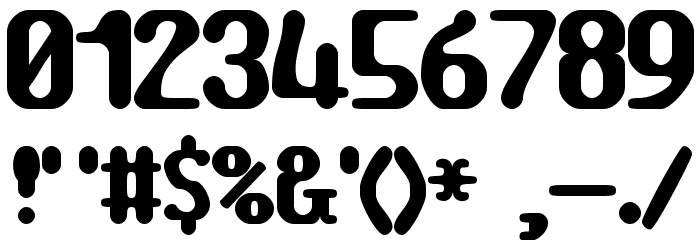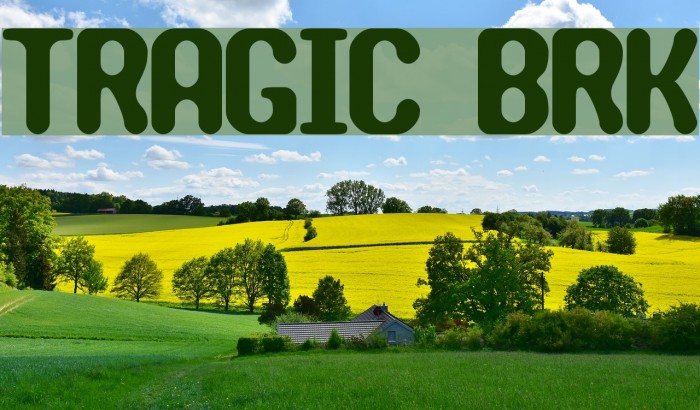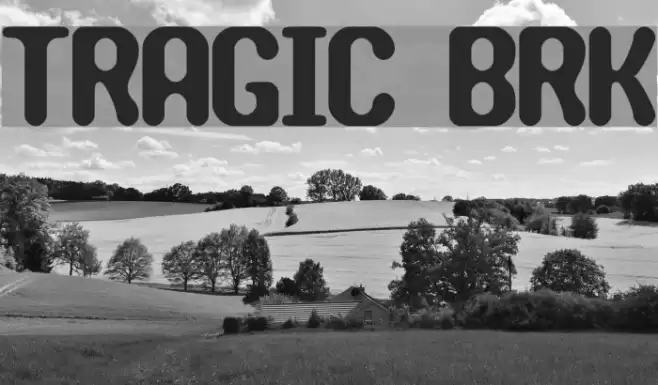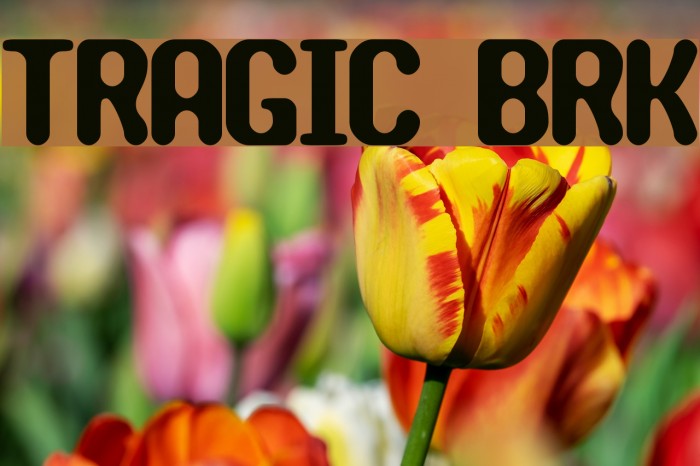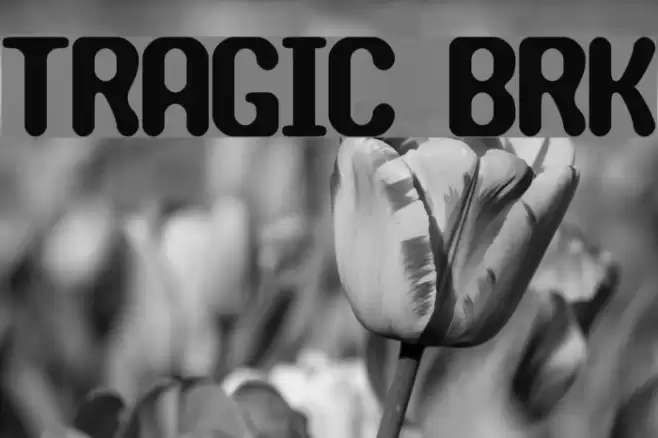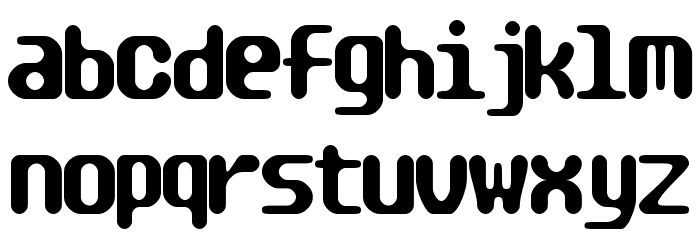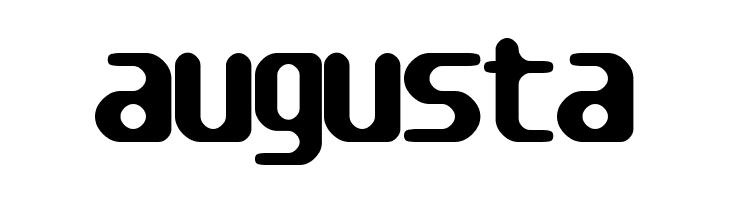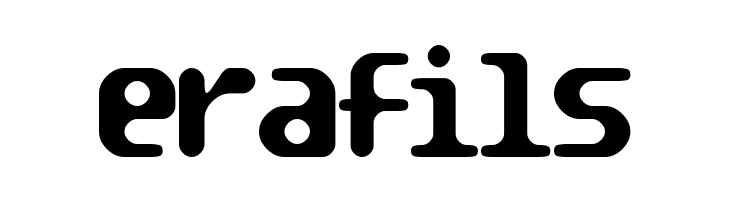
TRAGIC BRK Font
TRAGIC BRK Description
This font features a bold and playful design with rounded edges and a slightly condensed form. The characters are thick and uniform, giving it a strong presence. The uppercase and lowercase letters maintain a consistent style, with the lowercase being slightly smaller but equally bold. Numbers and special characters follow the same design principles, ensuring a cohesive look across all elements. The font's unique style makes it stand out, with its rounded forms adding a touch of friendliness and approachability.
| Categories | Gothic |
| Width | Condensed |
| Overall Style | Playful, Modern |
| Proposed Projects | Ideal for children's books, playful branding, posters, and creative projects that require a friendly and approachable typeface. |